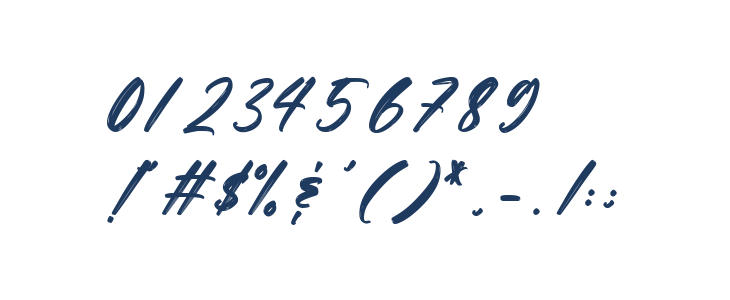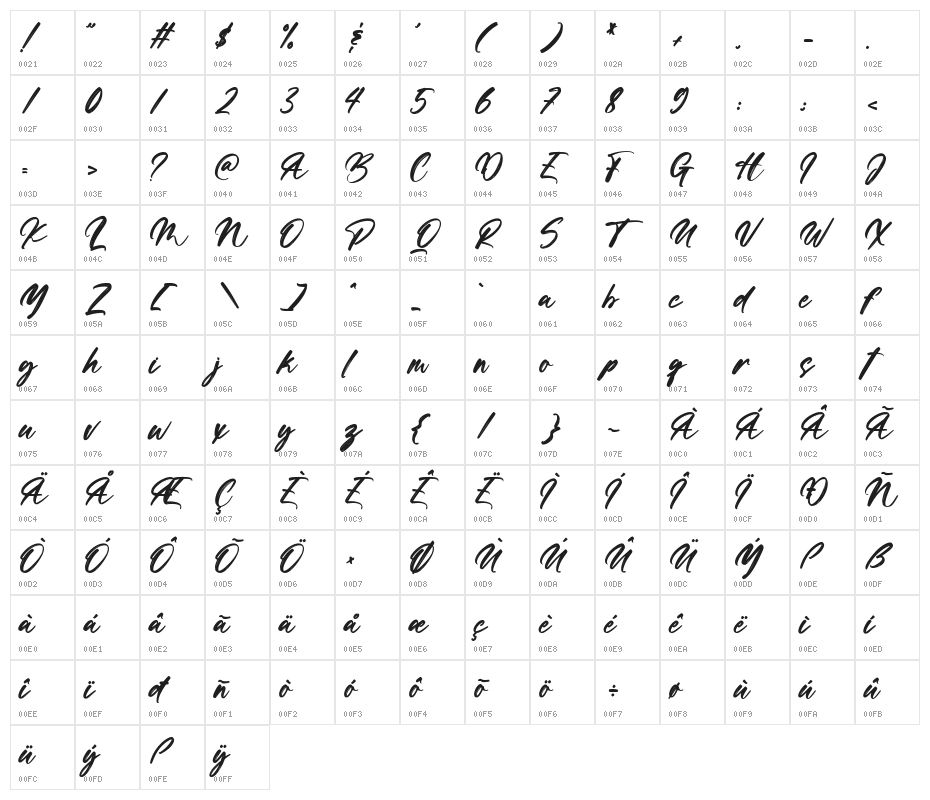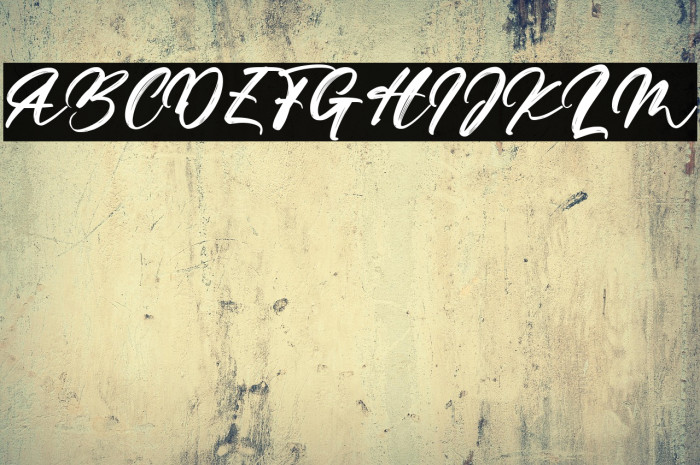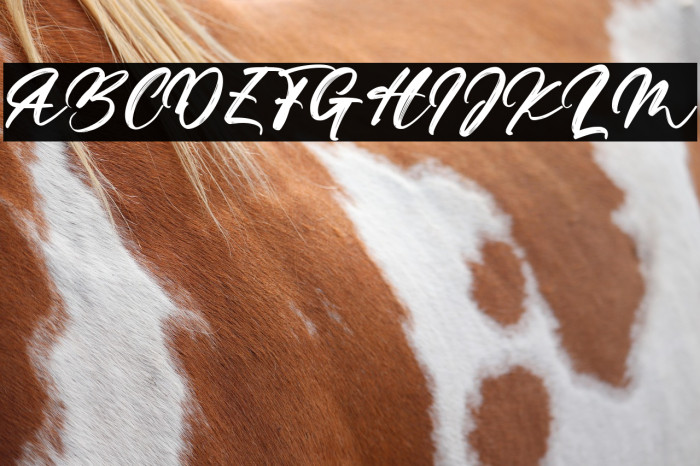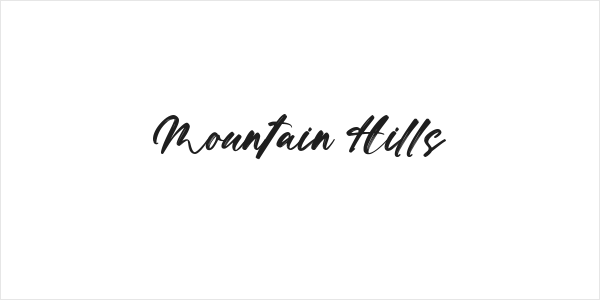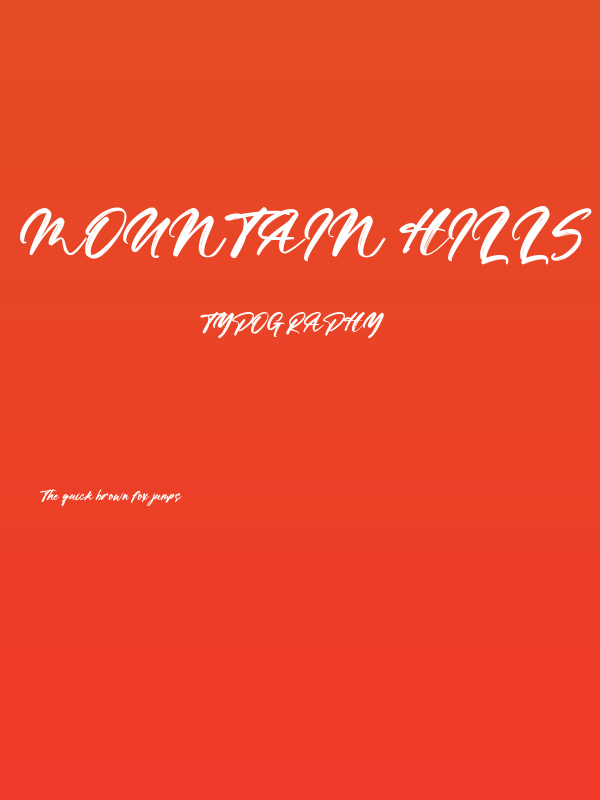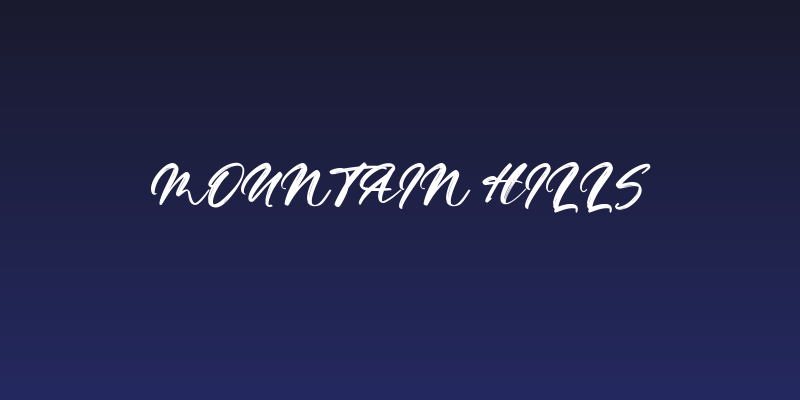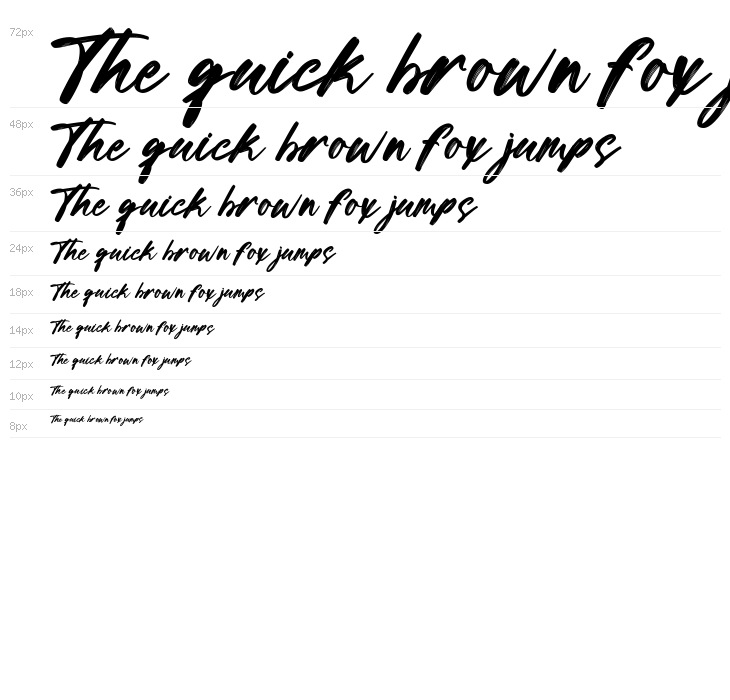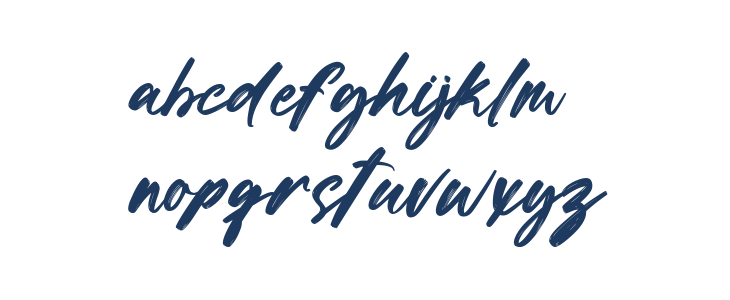
Mountain Hills Font
Mountain Hills Description
This font exudes a dynamic and energetic style, characterized by its bold, flowing script. The letters are connected in a cursive manner, giving it a handwritten feel that is both elegant and casual. The strokes are thick and expressive, with a slight slant that adds to its lively appearance. The uppercase letters are slightly larger and more pronounced, while the lowercase letters maintain a consistent flow. Numbers and special characters are designed to match the overall aesthetic, ensuring a cohesive look across all text. This font is perfect for projects that require a personal touch or a sense of movement and creativity.
| Proposed Projects | Ideal for wedding invitations, greeting cards, branding, and social media graphics. |